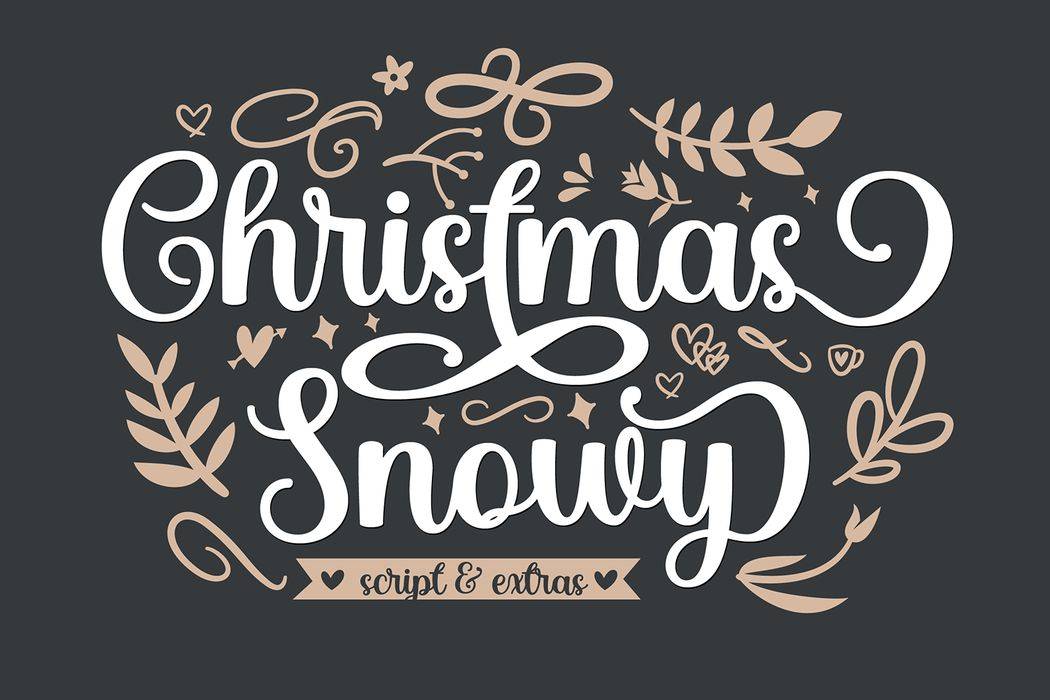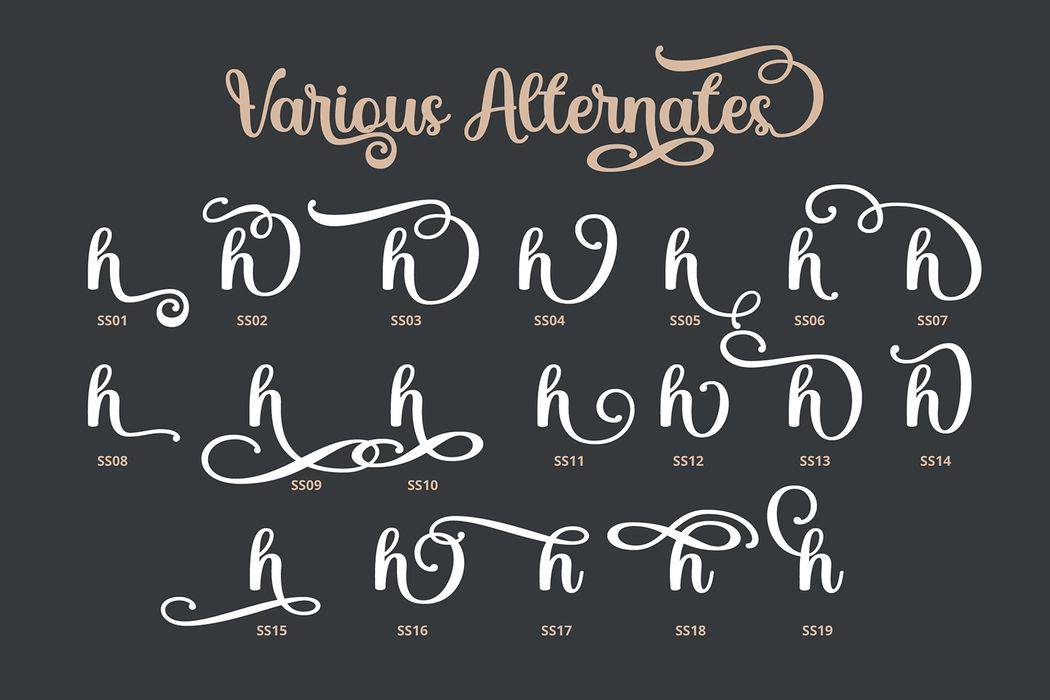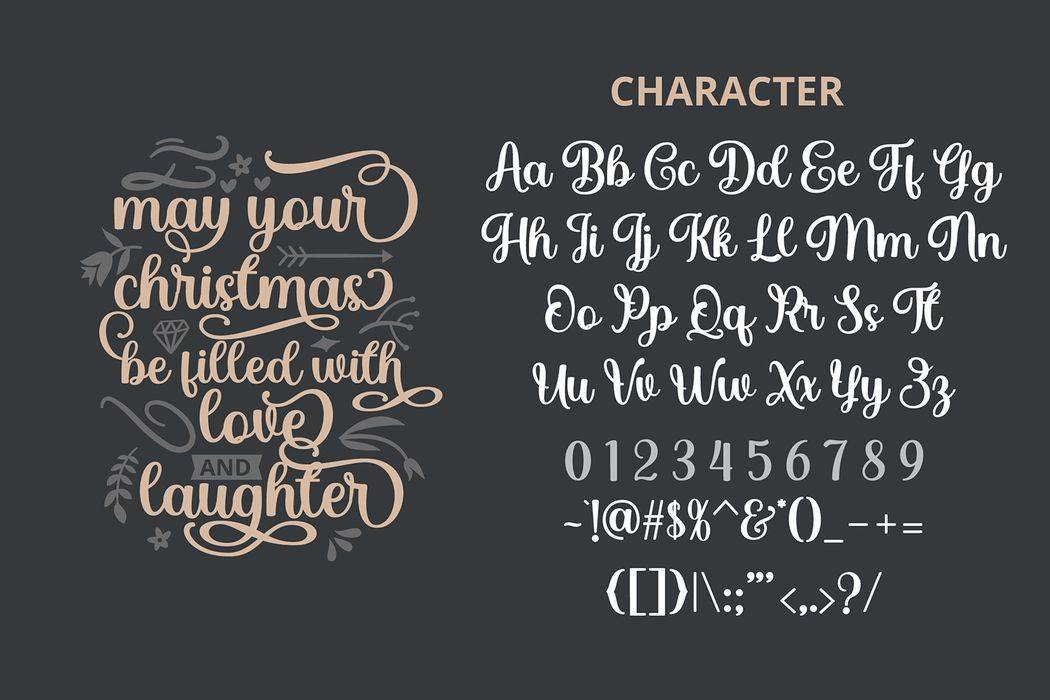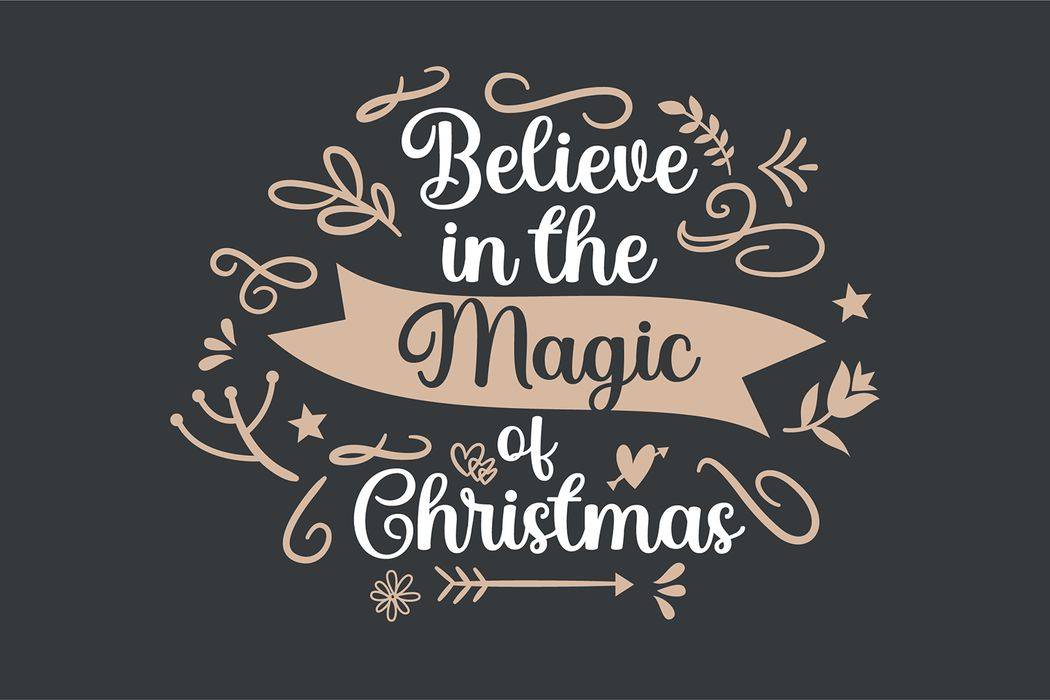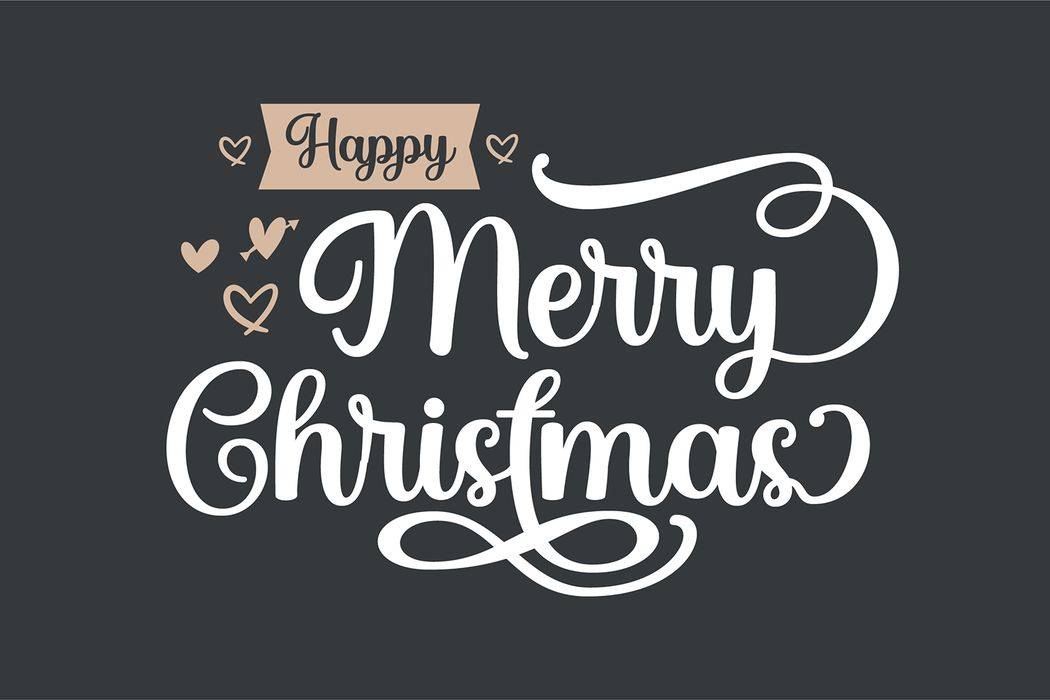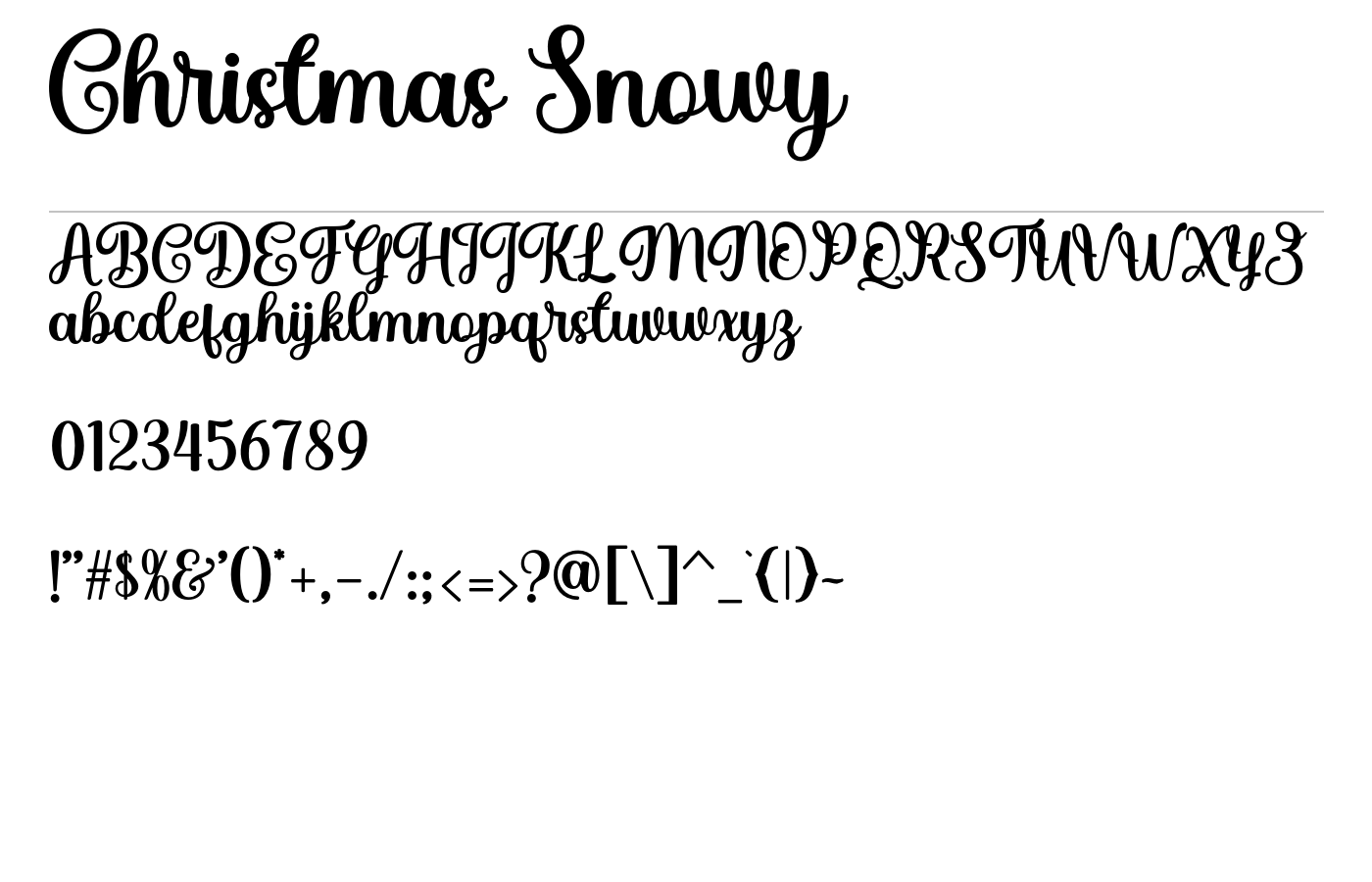
Christmas Snowy is a charming script font with playful, flowing letterforms that convey warmth and festivity. Its rounded, connected strokes and elegant curves make it ideal for holiday-themed designs, greeting cards, and seasonal branding that seeks a friendly and inviting tone. This font works beautifully in headlines and decorative uses where a cozy, cheerful atmosphere is desired.
Christmas Snowy Font
About Christmas Snowy Font